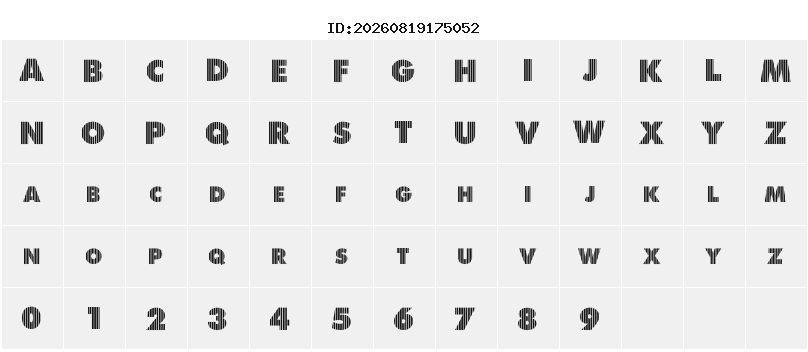
• Font Name: Shredded for you
• Font ID: Shredded for you
• Full Font Name: Shredded for you
About Shredded for you.ttf
Shredded for you.ttf is a modern, elegant sans-serif font designed for ultimate readability and visual harmony. Perfect for branding, headlines, web design, and print materials.